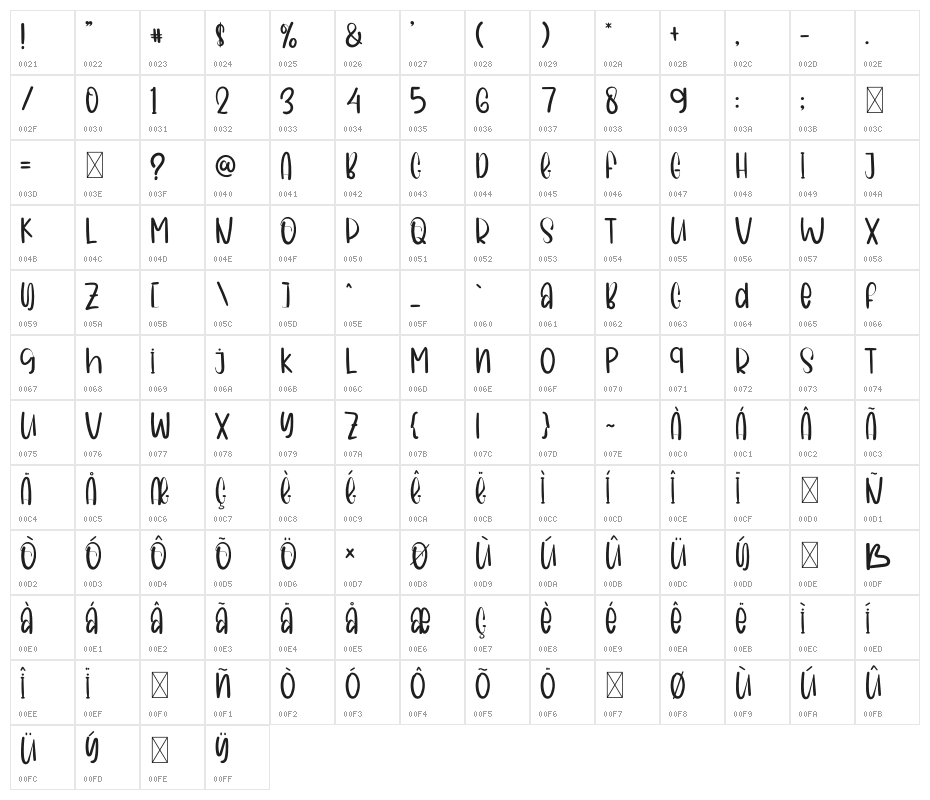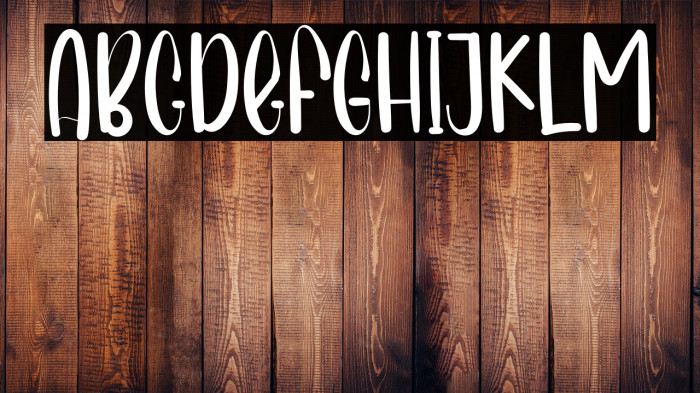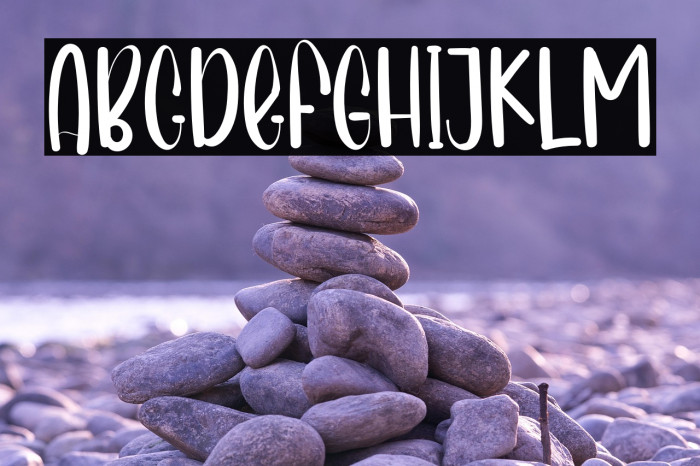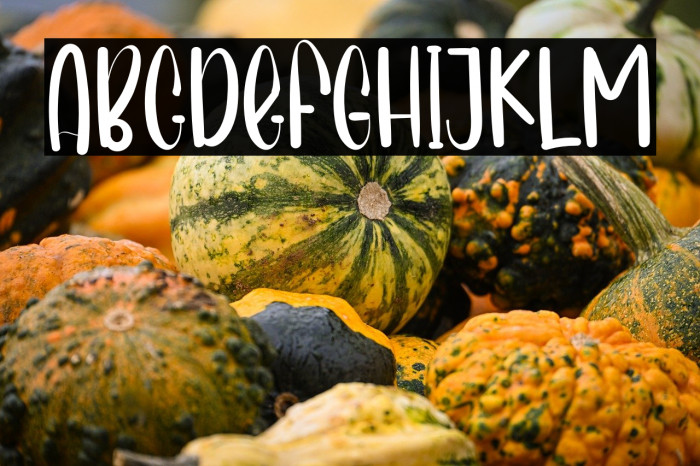
Sunshine In Winter Font
Sunshine In Winter Description
This font features a playful and whimsical style, characterized by its tall, narrow letters with a slight slant. The strokes are smooth and rounded, giving it a friendly and approachable appearance. The uppercase and lowercase letters maintain a consistent height, which adds to its uniformity. The numbers and special characters are designed to match the overall style, ensuring cohesion throughout. The font's unique personality makes it suitable for projects that require a touch of fun and creativity.
| Width | Condensed |
| Overall Style | Playful, Whimsical |
| Proposed Projects | Ideal for children's books, greeting cards, playful branding, and creative posters. |